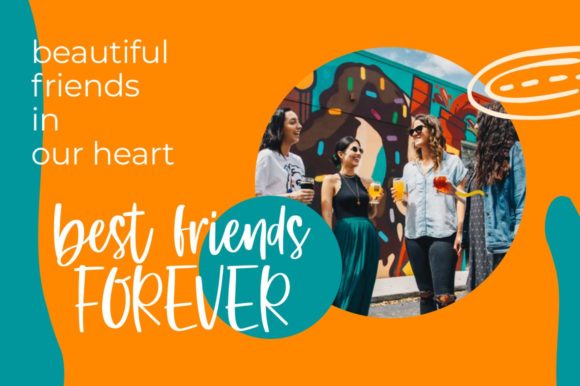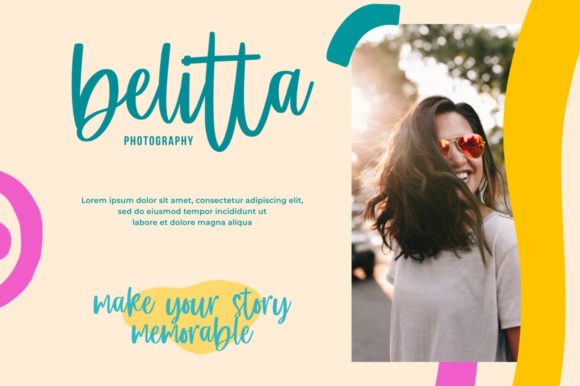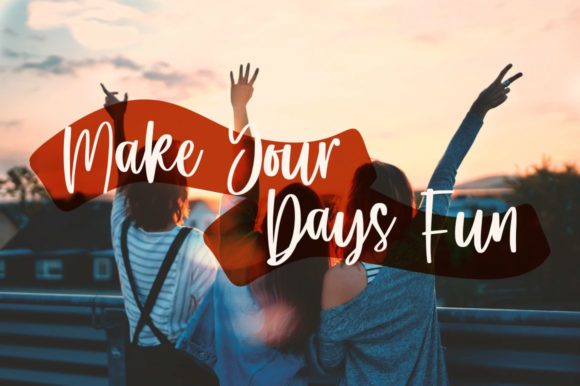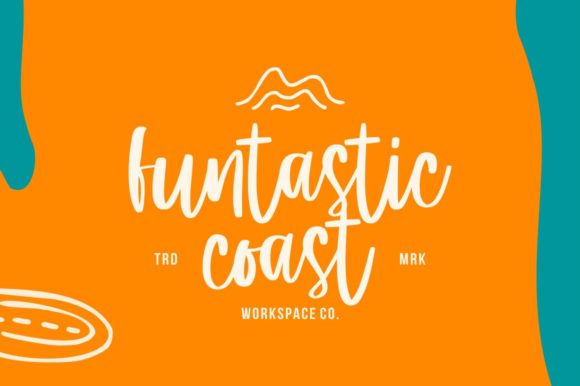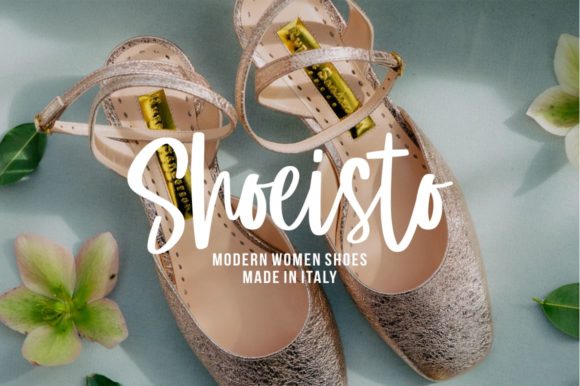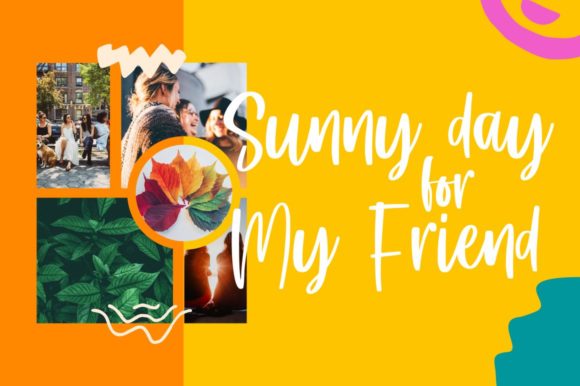
The Butter Cheese Font: A Tasty Script to Elevate Your Designs
I’ll never forget the time I was working on a design project for a client who wanted a playful, yet authentic feel. I had spent hours scouring the internet for the perfect font, but nothing seemed quite right. That was until I stumbled upon the Butter Cheese font. It was like a breath of fresh air – a script that was both fun and elegant. In this article, I’ll share my experience with the Butter Cheese font, its features, and how to make the most of it in your designs.
As a designer, I’m always on the lookout for fonts that can add a unique touch to my projects. Here’s what I love about Butter Cheese:
- ✨ Playful feel: Butter Cheese has a fun, carefree vibe that’s perfect for designs that need a bit of whimsy.
- ✅ Elegant script: Despite its playful feel, Butter Cheese is still a sophisticated script that’s suitable for a wide range of designs.
- 💬 Great for headlines and titles: The font’s bold, cursive style makes it perfect for grabbing attention and adding emphasis to your headlines and titles.
Of course, no font is perfect, and Butter Cheese has a few quirks to be aware of:
- 🤔 Limited use for body text: While Butter Cheese is great for headlines and titles, it’s not the best choice for body text. The font can be a bit too ornate for long blocks of text.
- ⚠️ Some letter combinations may not work well: As with any script font, some letter combinations may not work as well as others. Be sure to proofread your text carefully to avoid any awkward combinations.
The Story Behind Butter Cheese
The Butter Cheese font was designed with the intention of creating a playful, yet elegant script font. The designer wanted to create a font that would add a touch of whimsy to designs, while still being sophisticated enough for a wide range of applications. The result is a font that’s both fun and refined, perfect for designs that need a bit of personality.
| What is the Butter Cheese font best used for? | The Butter Cheese font is best used for designs that need a playful, yet elegant touch. It’s perfect for headlines, titles, and short blocks of text. |
| Is the Butter Cheese font suitable for body text? | No, the Butter Cheese font is not suitable for body text. It’s best used for headlines, titles, and short blocks of text. |